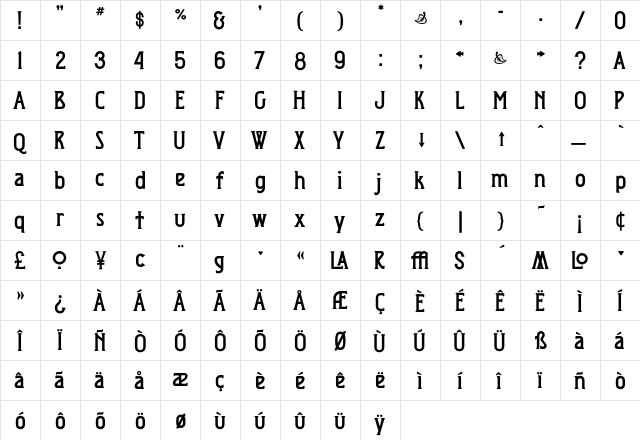
JMExpositionRoundedDemiBold Regular Font Preview
Design Context for JMExpositionRoundedDemiBold Typeface
JMExpositionRoundedDemiBold uses gentle rounded endings to create a warm, inviting typographic personality — less corporate than geometric sans, more refined than playful display fonts. Its bold stroke weight gives it real presence on the page.
Well-suited to UI design, mobile interfaces, and any brand that wants approachability without sacrificing clarity.
Font Pairing: Pairs well with a rounded or humanist sans for body copy, maintaining the friendly tone without relying on JMExpositionRoundedDemiBold to carry extended reading.
Pro Tip: Use JMExpositionRoundedDemiBold for UI elements, app interfaces, and anywhere a friendly, approachable tone needs to be maintained without sacrificing clarity.